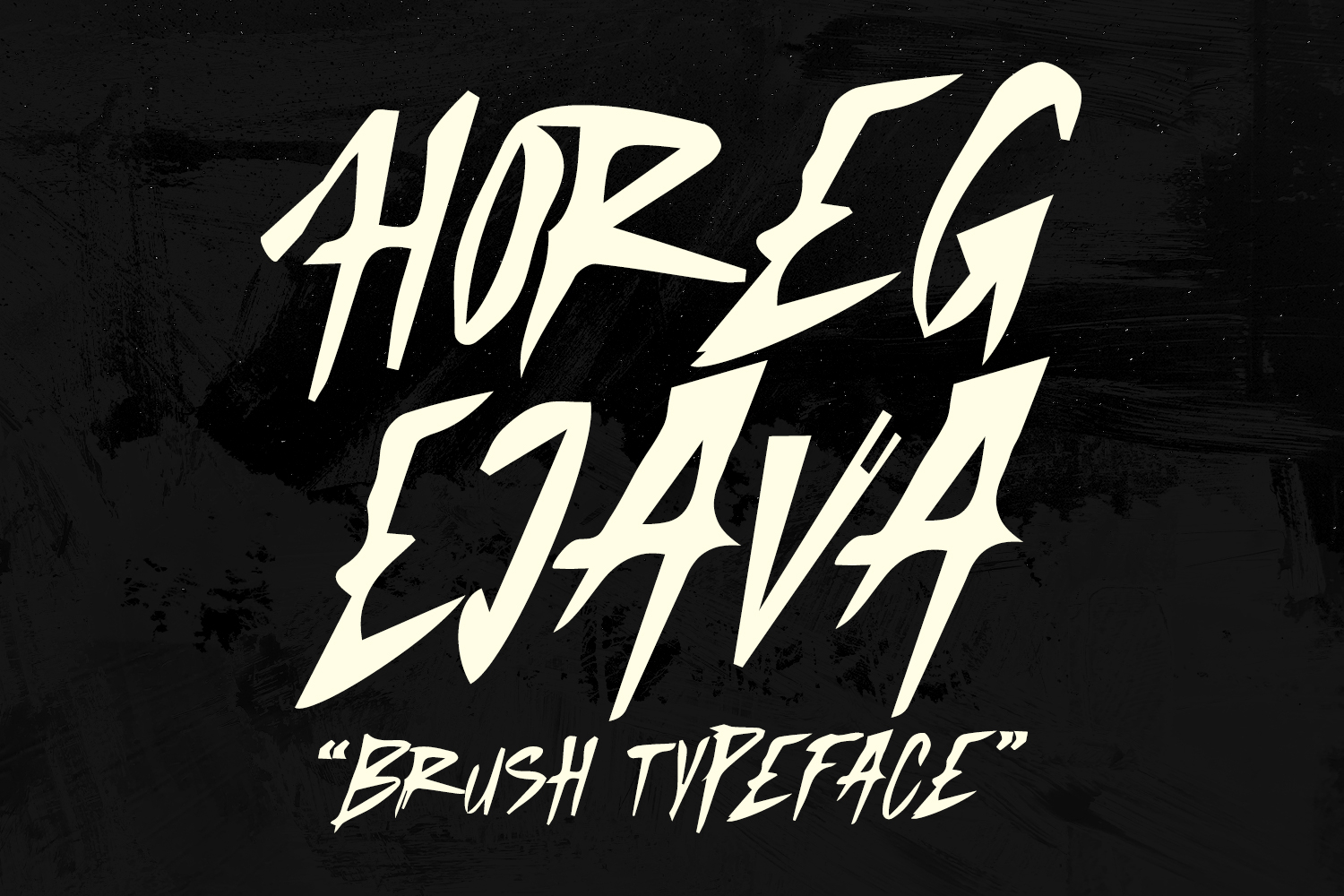
Give your designs an authentic brush handcrafted feel. "Horeg Ejava Brush Horror Typeface" is perfectly suited to signature, stationery, logo, typography quotes, website header, branding, brush font, project design and more.